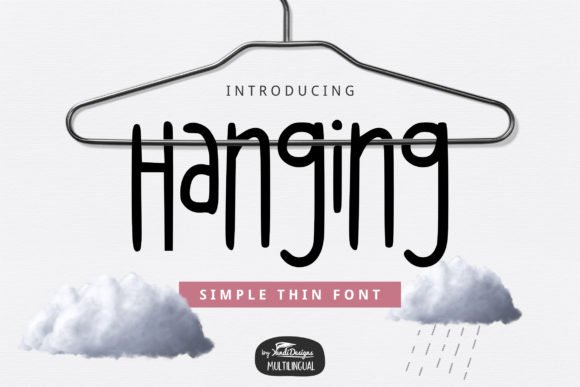
The Perfect Font to Take Your Designs to New Heights
Have you ever found yourself stuck on a design project, searching for that perfect font to bring your vision to life? It’s a feeling many of us have experienced, and it’s often the smallest details that can make all the difference. For designers looking to add a touch of whimsy and personality to their work, the Hanging Font is a game-changer.
This unique sans serif font features long and hanging letters that will instantly catch the eye. Whether you’re designing a logo, creating a social media campaign, or working on a branding project, the Hanging Font is sure to make a statement. Its playful aesthetic is both pleasing to the eye and remarkably versatile, making it a valuable addition to any designer’s toolkit.
Hanging Font Key Features
- Font Family: Hanging Font is a sans-serif font family designed by Typodermic Fonts.
- Font Size: Available in a range of sizes, from 8 to 72 points, making it suitable for various design applications.
- Unique Characteristics: Hanging Font features a distinctive design with a subtle ‘hanging’ effect, where the lowercase letters appear to be suspended in mid-air.
- Resolution: Suitable for both screen and print resolutions, with clear readability at font sizes above 12 points.
Hanging Font Review
I recently had the chance to work with the Hanging Font, and I have to say, it was a unique experience. Here’s my honest take on what worked well and what didn’t:
- The Hanging Font’s quirky design really adds a touch of personality to any project. It’s perfect for creative, whimsical designs that need a bit of flair.
- It’s highly customizable, which makes it easy to adapt to different projects and styles. I was able to adjust the spacing, size, and color to get the perfect look.
- The font is also highly legible, even at small sizes. This is a big plus for designers who need to use the font in smaller formats.
- The Hanging Font is not ideal for formal or professional projects. Its playful design may come across as unprofessional in certain contexts.
- It may be challenging to pair the font with more traditional or classic designs. The font’s unique style may clash with more conservative aesthetics.
Overall, I’d say the Hanging Font is a solid choice for designers who want to add a bit of whimsy to their projects. While it may not be suitable for every project, it’s definitely a great option for those who want to think outside the box.
The Hanging Font is perfect for:
- Creating whimsical and playful designs.
- Adding a touch of elegance to formal documents.
- Designing for children’s books or educational materials.
Remember to experiment with different font sizes and styles to get the most out of the Hanging Font.
Alternatives to Hanging Font for Designers
Playfair Display is a luxurious and elegant script font that is perfect for creating a sense of sophistication and refinement. It’s ideal for use in titles, headings, and other prominent text elements where a high-end feel is desired. Compared to Hanging Font, Playfair Display has a more refined and polished appearance, making it a better choice for formal and upscale designs.
Carolyna Pro is a modern and stylish script font that is designed to add a touch of elegance and sophistication to any design. It’s perfect for use in titles, headings, and other prominent text elements where a sense of luxury and refinement is desired. Compared to Hanging Font, Carolyna Pro has a more contemporary and sleek appearance, making it a better choice for modern and trendy designs.
Great Vibes is a beautiful and elegant script font that is designed to evoke a sense of relaxation and sophistication. It’s perfect for use in titles, headings, and other prominent text elements where a sense of calm and serenity is desired. Compared to Hanging Font, Great Vibes has a more subtle and understated appearance, making it a better choice for designs where a sense of calm and tranquility is desired.
Caslon
Caslon is a classic and elegant serif font that is designed to add a sense of sophistication and refinement to any design. It’s perfect for use in body text, titles, and other prominent text elements where a sense of tradition and elegance is desired. Compared to Hanging Font, Caslon has a more classic and timeless appearance, making it a better choice for designs where a sense of history and tradition is desired.
Q: How do I choose the right Hanging Font for my design project?
To choose the right Hanging Font, consider the overall aesthetic and tone of your design project. Look for fonts that have a unique and consistent hanging axis, and that fit with the style and mood of your project. You may also want to experiment with different font sizes and combinations to find the right balance of readability and visual appeal.